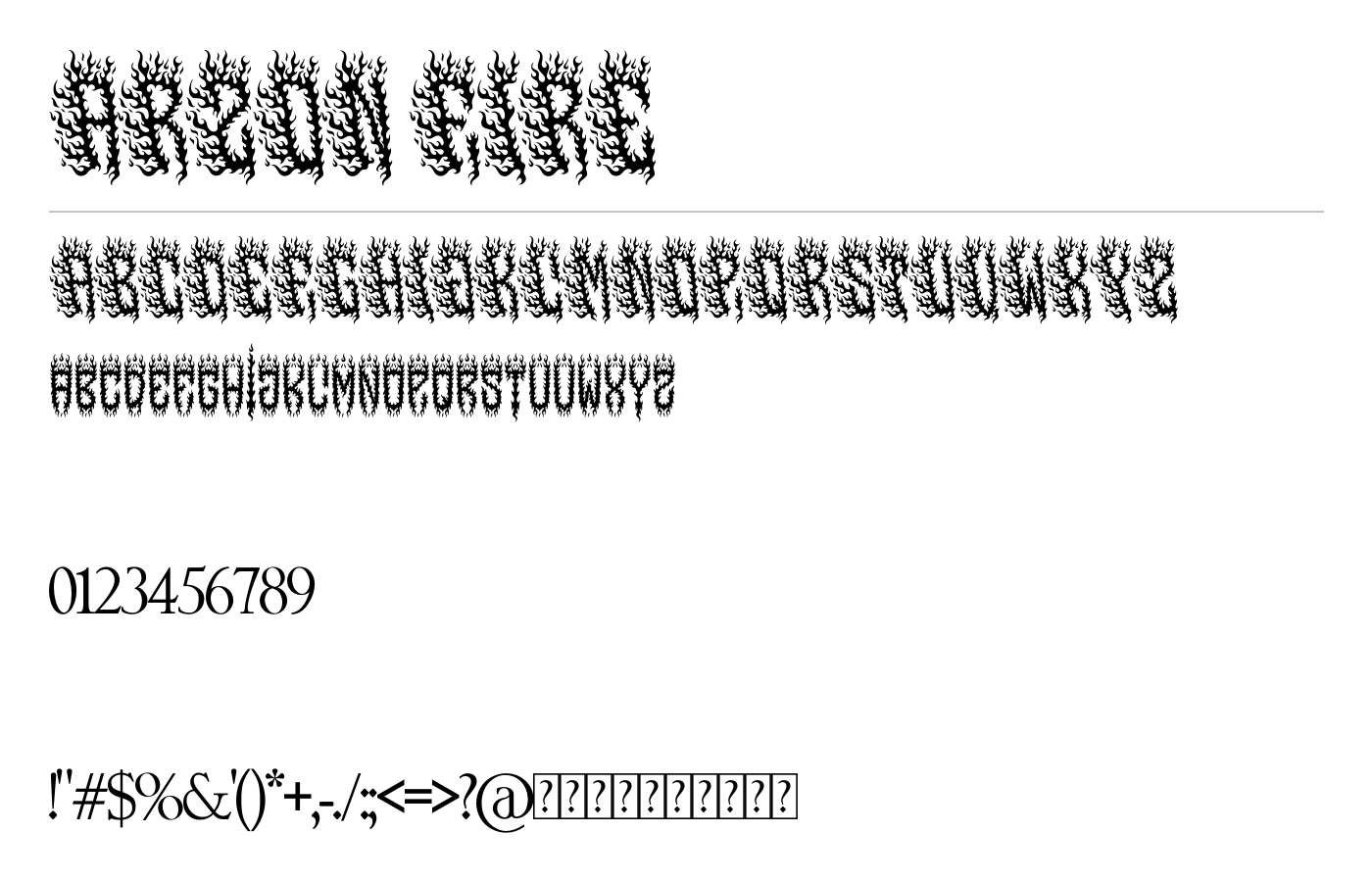
ARZON FIRE is a bold, decorative display font characterized by letters formed from dynamic flame shapes, giving it a fiery and intense look. Its uppercase-only design and intricate flame details make it perfect for eye-catching headlines, logos, or posters where a strong, energetic, and daring vibe is desired. This font works best in creative and edgy contexts that demand high visual impact rather than body text.
ARZON FIRE Font
About ARZON FIRE Font
| Font family | ARZON FIRE Font |
| Designer | Hamber Perdiansyah |